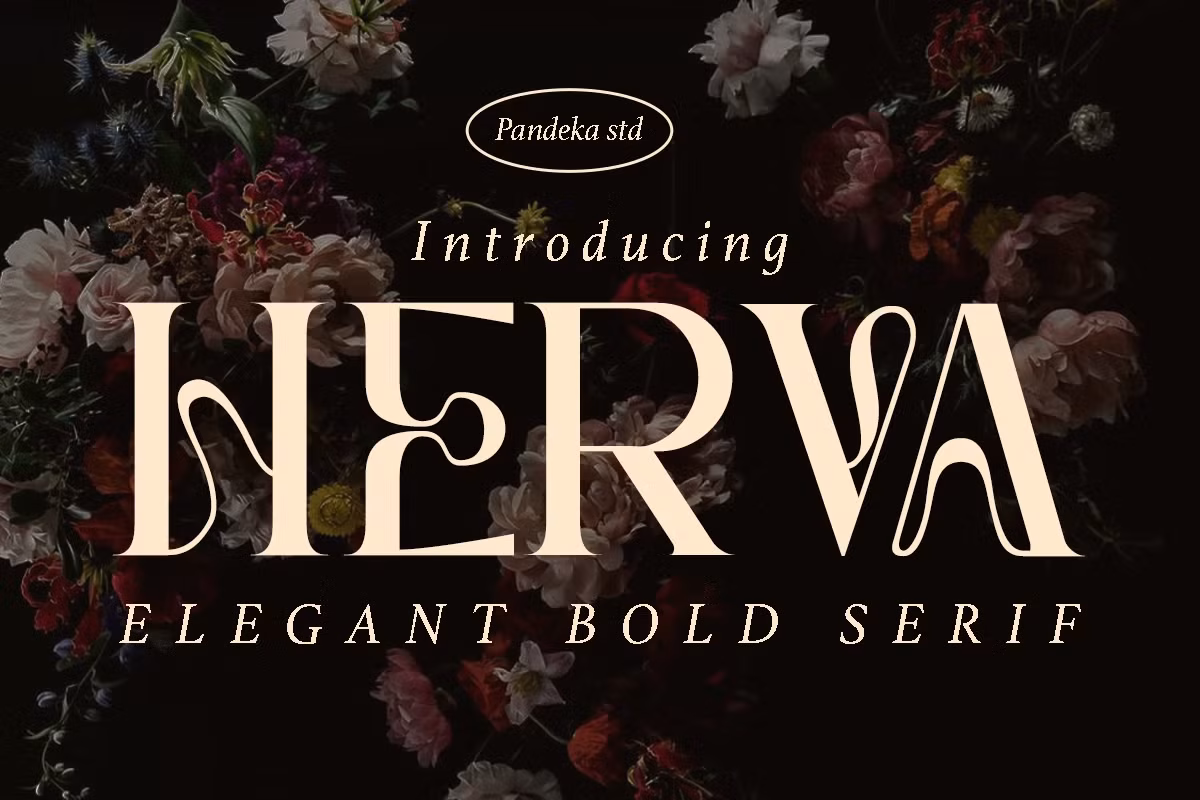
Herva - Decorative Elegant Serif Free Download
Herva - Decorative Elegant Serif Font Free Download
You must purchase this font for commercial use. However, you can download Herva - Decorative Elegant Serif Font Free Download for testing purposes. Herva is a beautifully crafted decorative serif font that combines elegance with intricate design details. With its unique character and refined letterforms, this font is perfect for high-end branding, logos, editorial designs, packaging, and upscale invitations.
The delicate serifs and sophisticated details of Herva add a timeless, luxurious touch to any project. Whether you're creating a premium brand identity, a chic magazine spread, or a stylish logo, this font will elevate your typography with its decorative elegance.